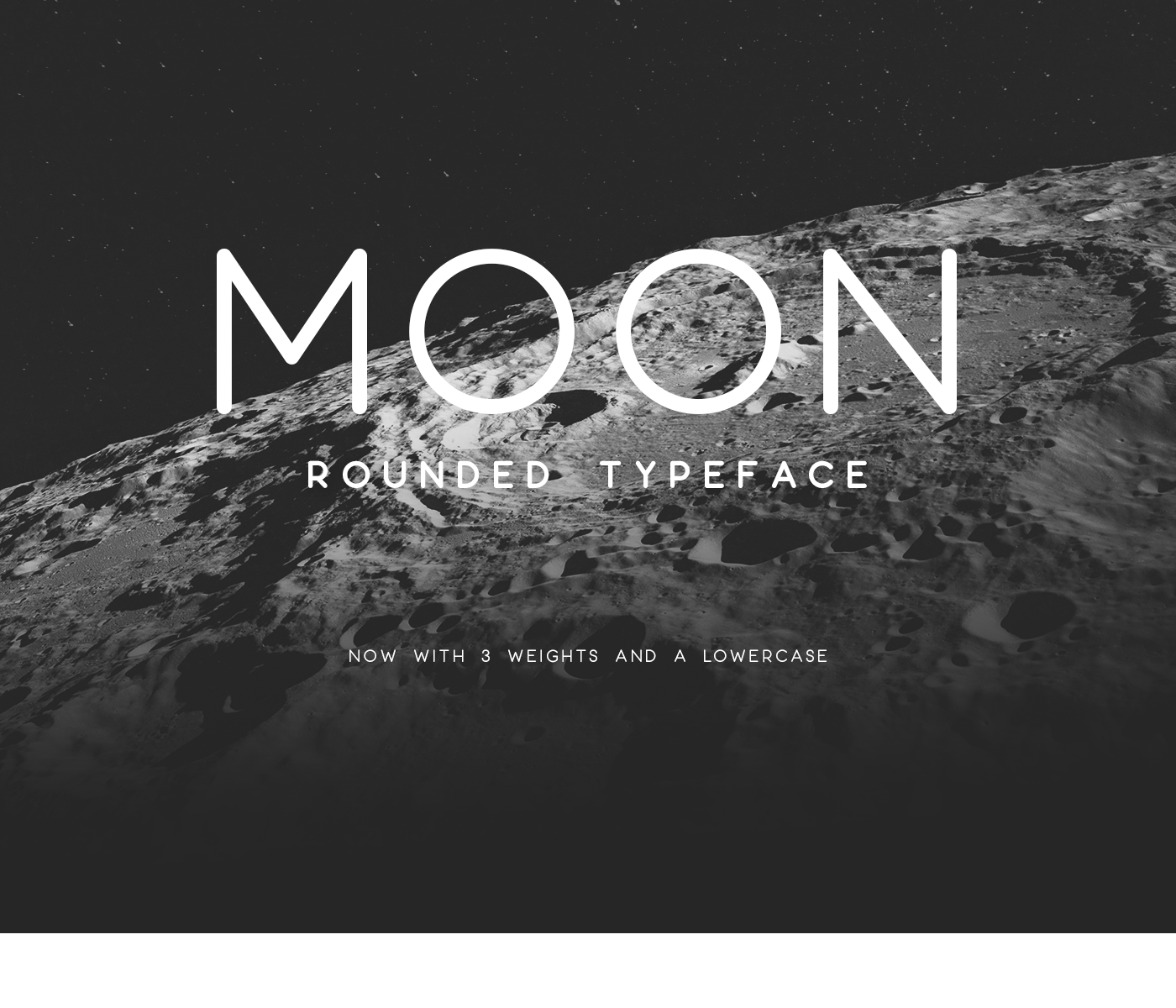
Download and enjoy this moon font - free download. Cool typeface to showcase your designs in a modern way. Download this font from the original source of Jack Harvatt. You can create a professional designs with this fancy font.